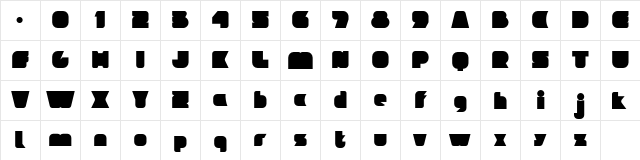
ideoma PSEUDO Regular
Design Context for ideoma PSEUDO Typeface
ideoma PSEUDO is a composed and adaptable typeface that performs quietly and consistently across a wide range of design contexts.
Pro Tip: Use ideoma PSEUDO in both headline and body roles to test its range before committing to a single application.